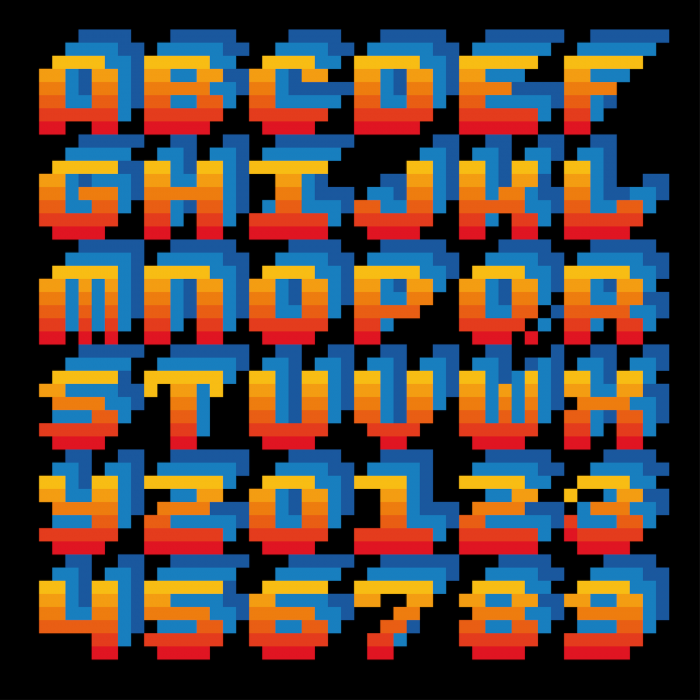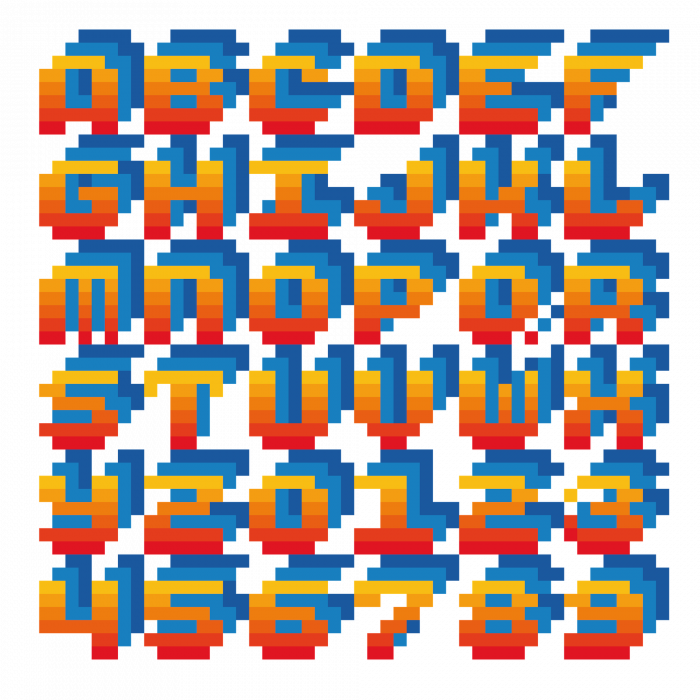
Great gradation! I like it.
It looks gorgeous with the yellow on the staff picks thumbnail! Nice work!
how did you make it with the different colors?
9/10. Very greatly designed!